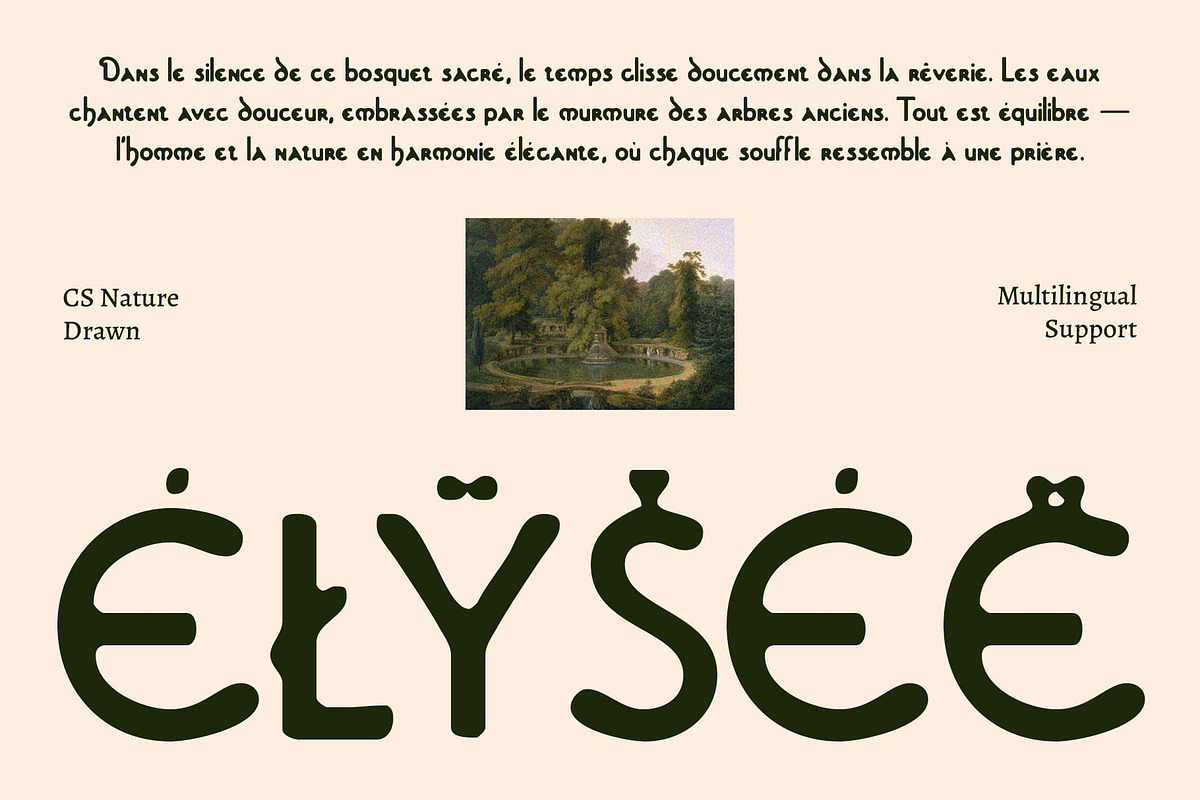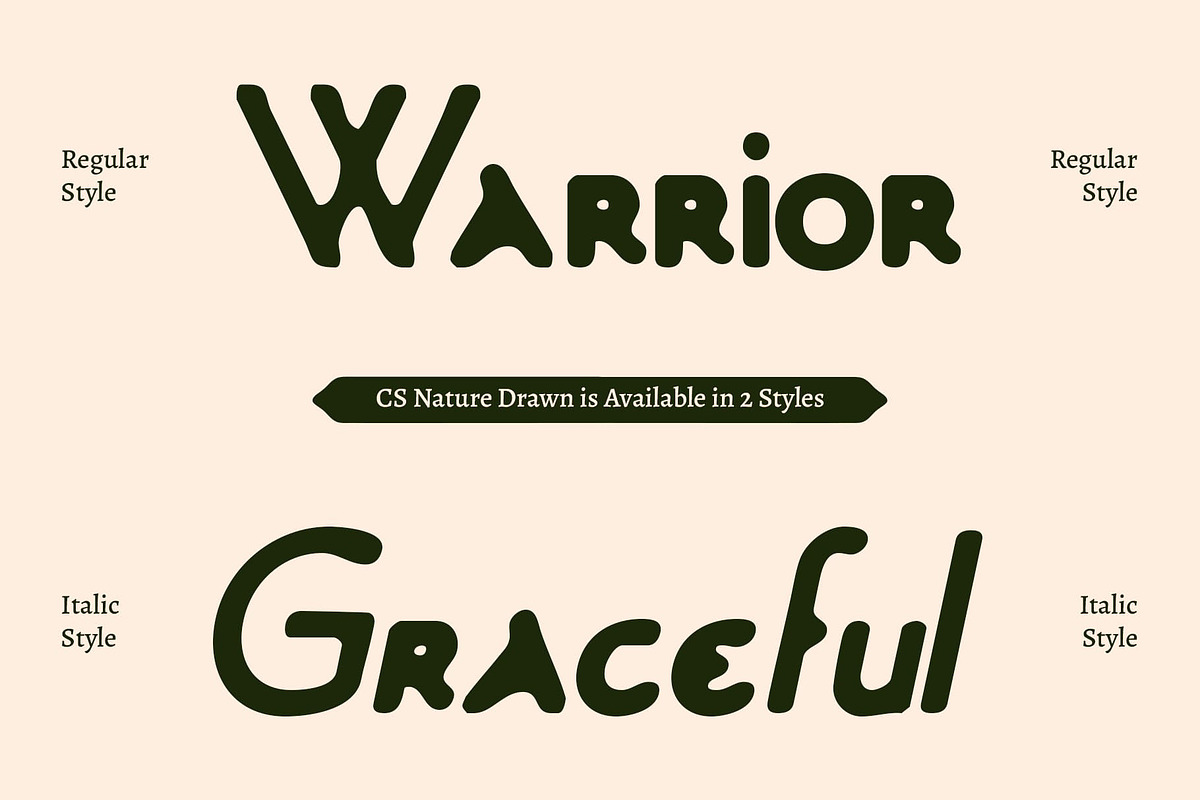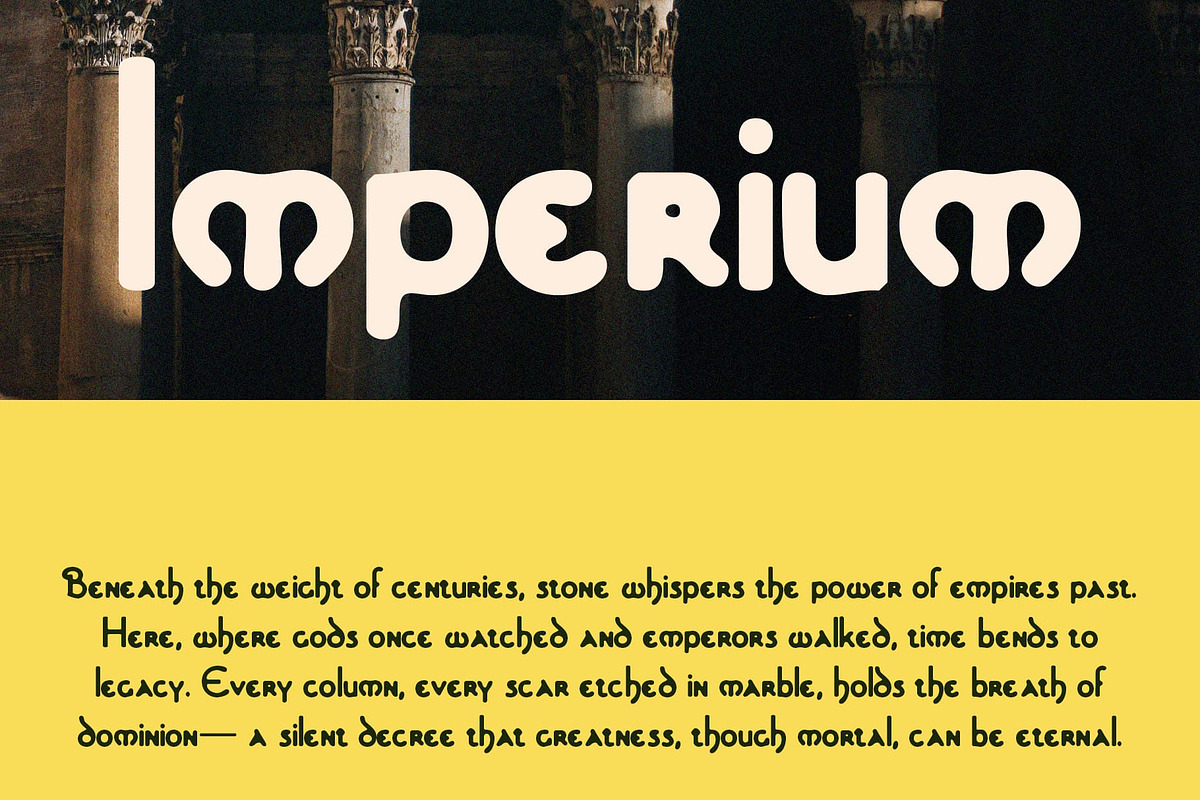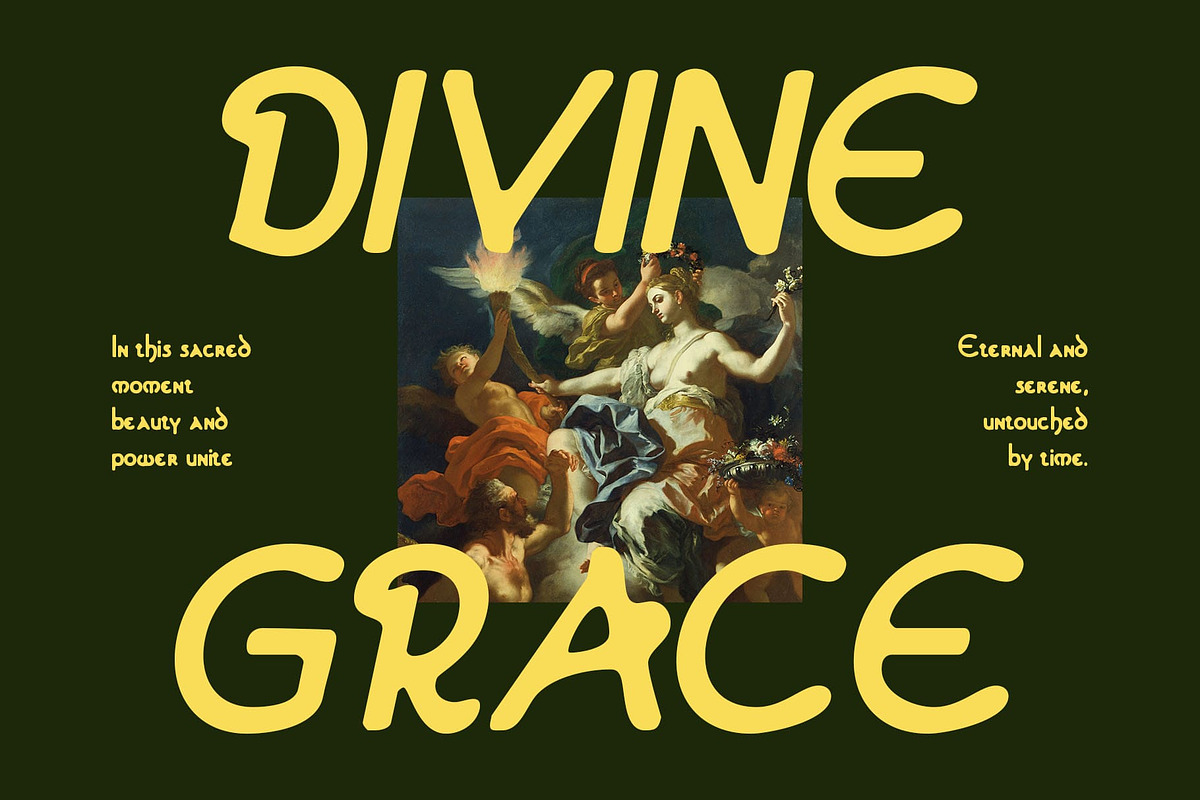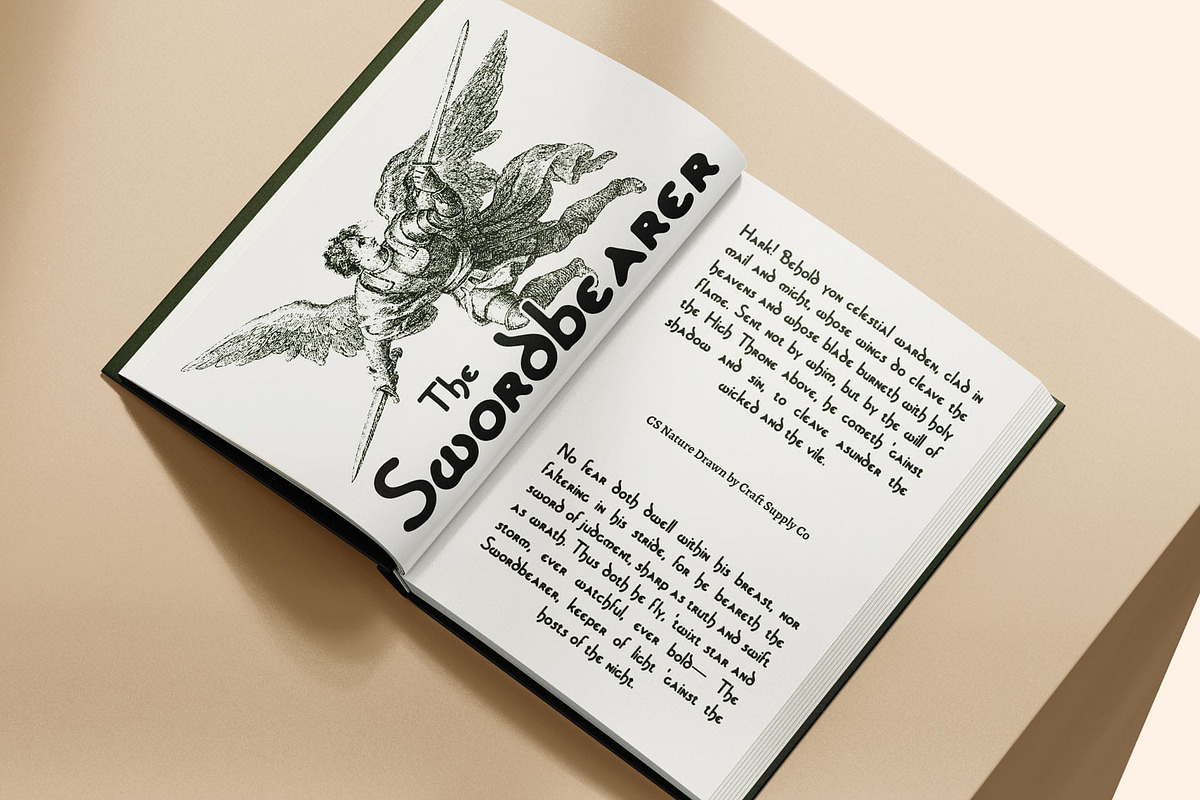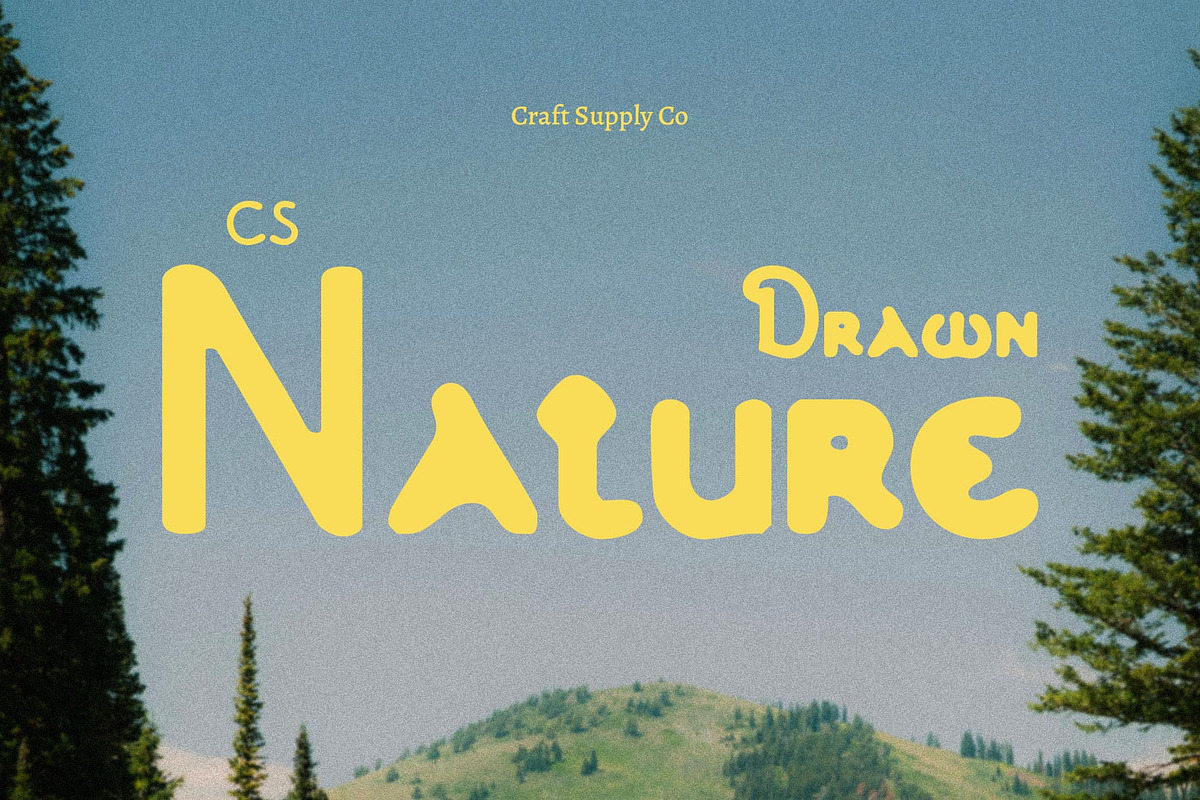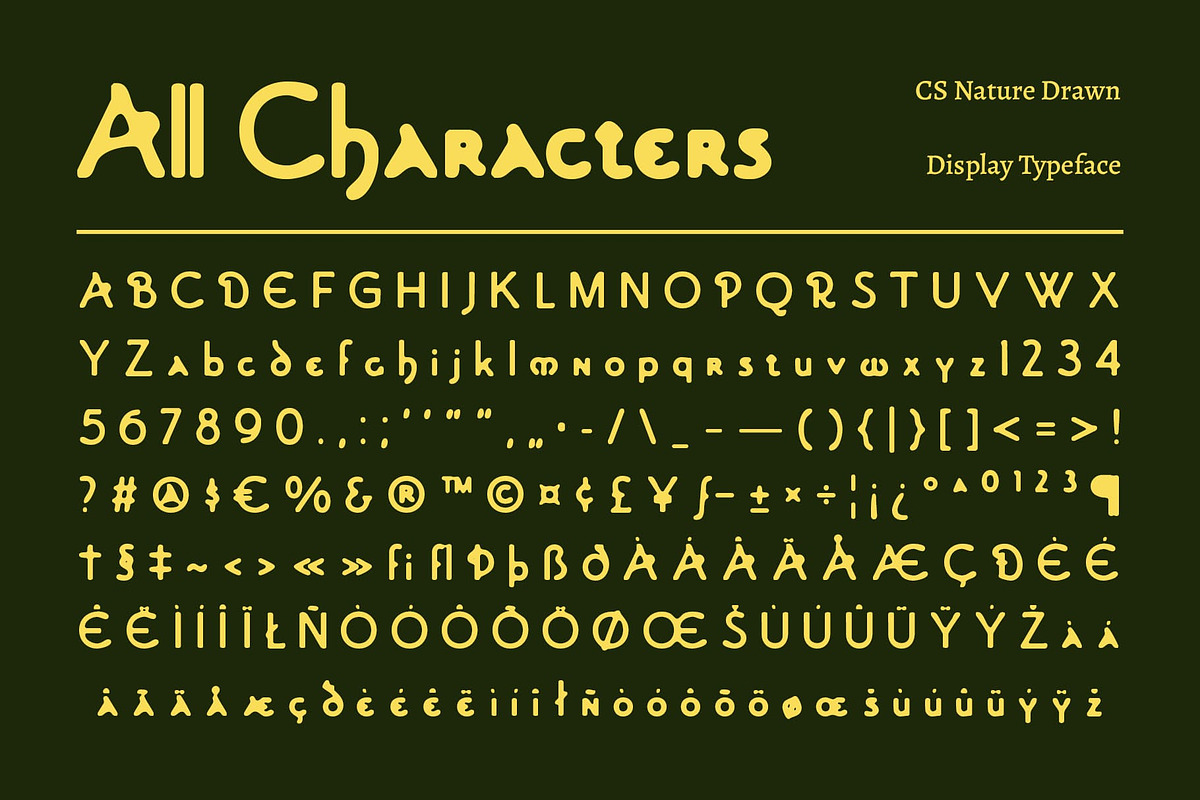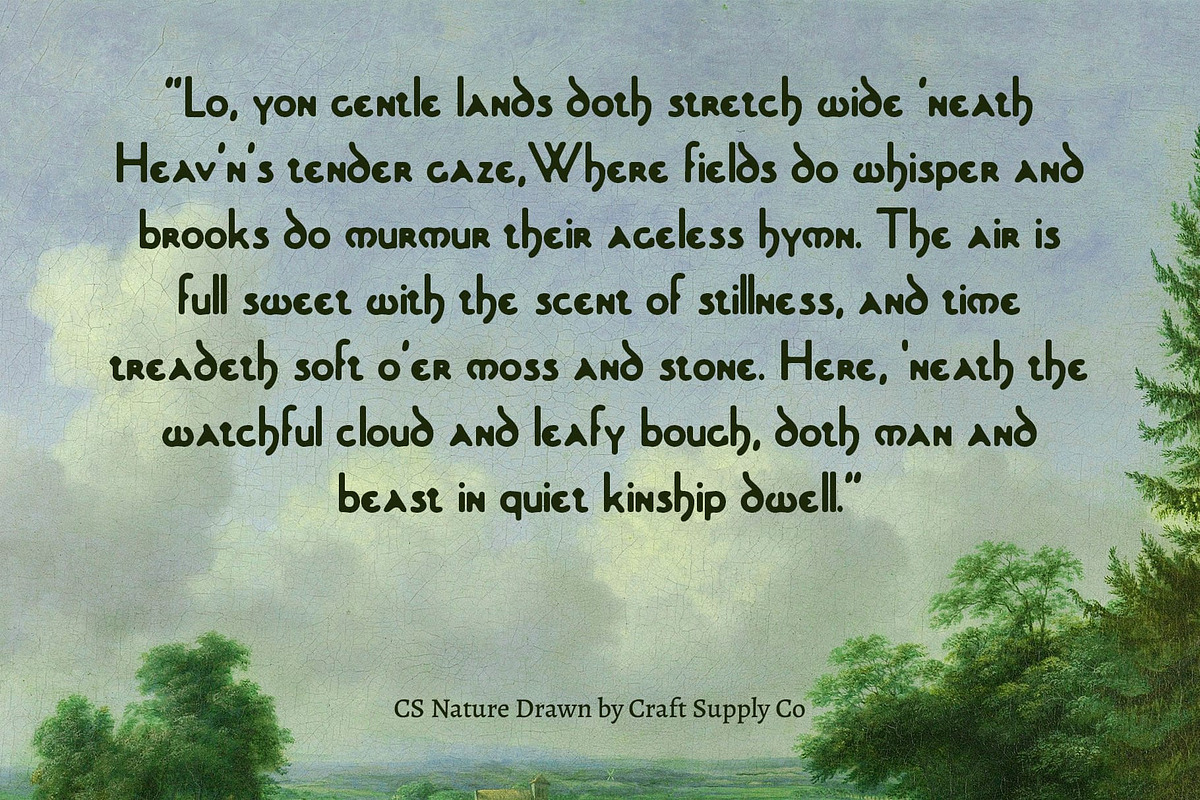
CS Nature Drawn
CS Nature Drawn: Elegant Uncial Serif with Handcrafted Character
Distinctive Uncial Letterforms CS Nature Drawn is a classic display serif font featuring uncial-inspired letterforms, giving it a timeless and refined typographic presence. Its bold yet elegant structure captures the beauty of traditional serif design while remaining highly readable.
Hand-Drawn Effect for Artistic Texture Enhanced with a subtle drawn effect, each character carries a handcrafted, artistic quality. This adds depth and uniqueness, making the font expressive and giving your designs a personal, organic touch.
Perfect for Luxury and Creative Projects Ideal for luxury branding, book titles, posters, and editorial layouts, this artistic and decorative font combines classic elegance with modern versatility. Its handcrafted texture elevates each project, adding sophistication and visual interest.
Versatile for Traditional and Unique Designs While rooted in classical uncial forms, this historic and traditional font adapts seamlessly to contemporary applications. Its combination of tradition, elegance, and expressive artistry makes it suitable for projects that require both timeless charm and distinctive character.
Timeless Artistry for Creative Projects Whether used for premium branding, luxurious editorial layouts, or standout posters, this timeless and classic font brings a sense of craftsmanship and authenticity. Its blend of traditional uncial inspiration and hand-drawn texture makes each design feel distinctive, artistic, and visually compelling.